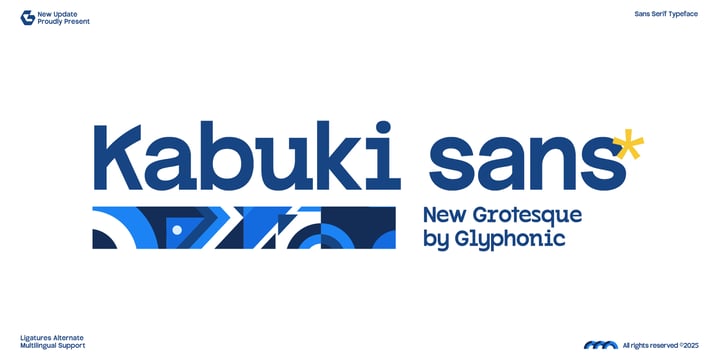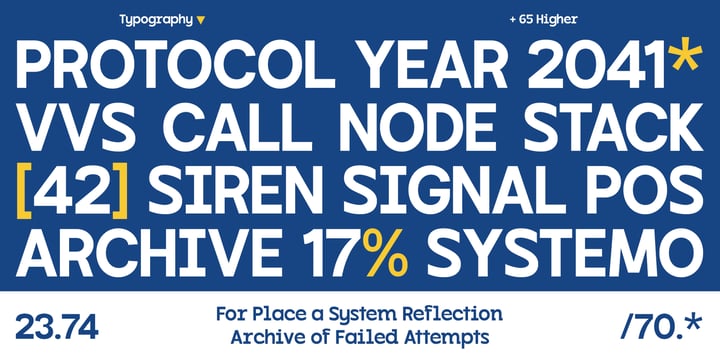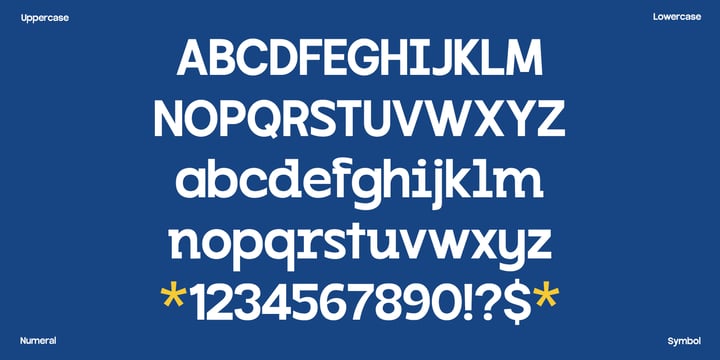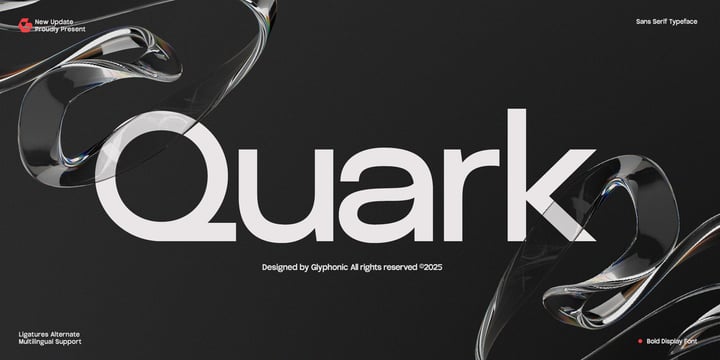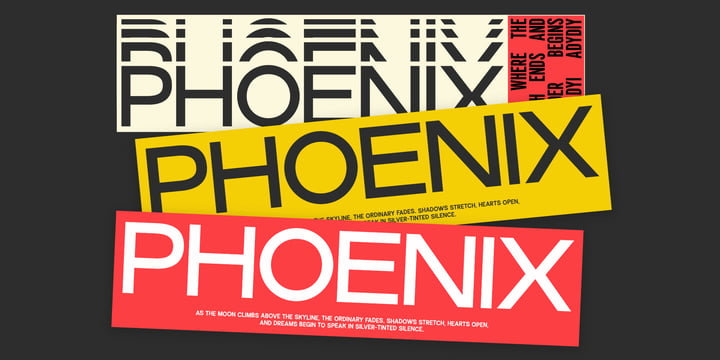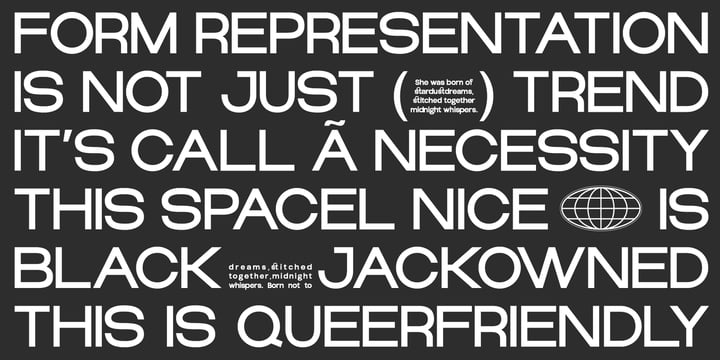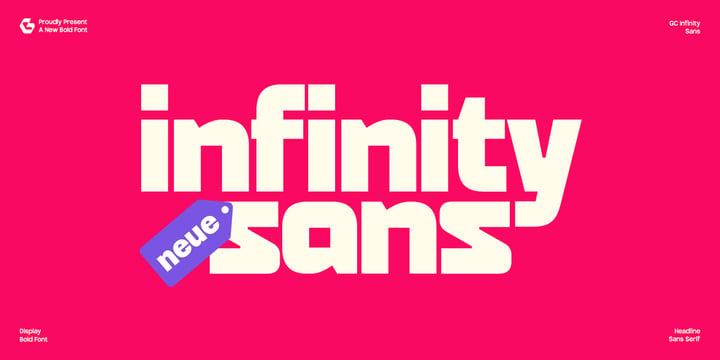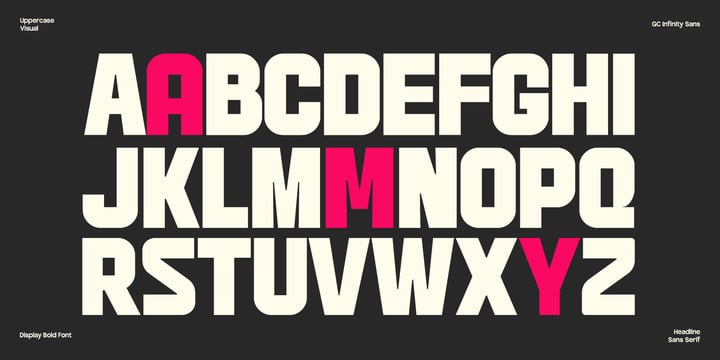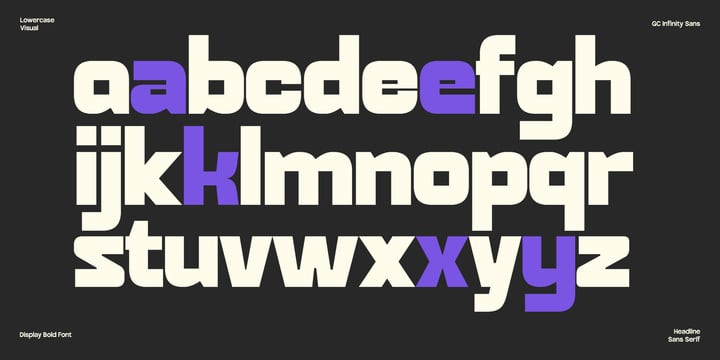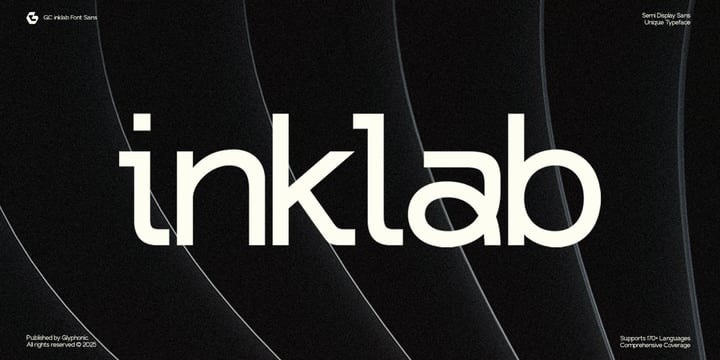
Muhammad Hafiizh Solana is a lettering artist and type designer based at Onyx Studio, with a dedicated focus on crafting expressive custom lettering and original typefaces. His work blends artistic intuition with typographic precision, resulting in letterforms that are both visually striking and thoughtfully constructed.
With a passion for the shape and rhythm of letters, Hafiizh explores typography as both an expressive medium and a form of visual storytelling. Whether through hand-drawn scripts or digitally refined fonts, his approach centers on creating work that captures personality, emotion, and clarity—all within the structure of the letterform.
At Onyx Studio, Hafiizh works exclusively in the fields of lettering and font creation. He designs typefaces from the ground up, handling every aspect of development—from sketching and concepting to vector drawing, spacing, and kerning. His type designs are tailored for a variety of uses, including branding, display, editorial, and digital platforms, always aiming to strike a balance between function and aesthetic character.
In addition to typeface design, Hafiizh is deeply immersed in the craft of custom lettering—developing logotypes, wordmarks, and expressive typographic compositions that are unique and fully hand-crafted. His lettering style ranges from sharp and modern to organic and fluid, often infused with a personal, human touch that digital fonts alone cannot capture.
Hafiizh’s work is influenced by calligraphy, vintage signage, modern typography, and the cultural textures of his surroundings. This broad spectrum of inspiration informs a design voice that feels both grounded and evolving—combining respect for typographic tradition with a constant drive to innovate.
Beyond the studio, Hafiizh shares his passion for letterforms through personal projects and collaborations, and he continues to explore how type and lettering can shape visual identity in meaningful, enduring ways.
With a deep respect for form, detail, and creative expression, Muhammad Hafiizh Solana is committed to building a distinctive body of work that celebrates the beauty of letters—one curve, stroke, and glyph at a time.